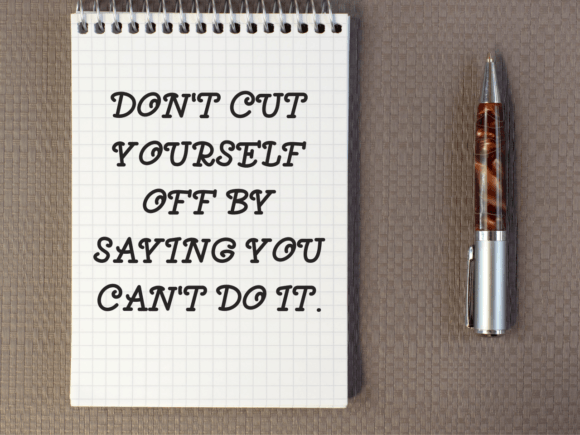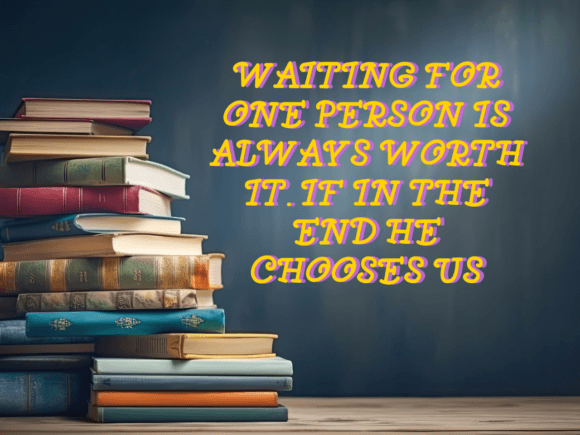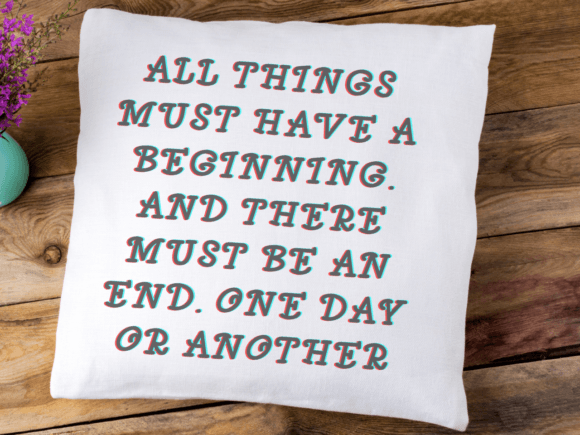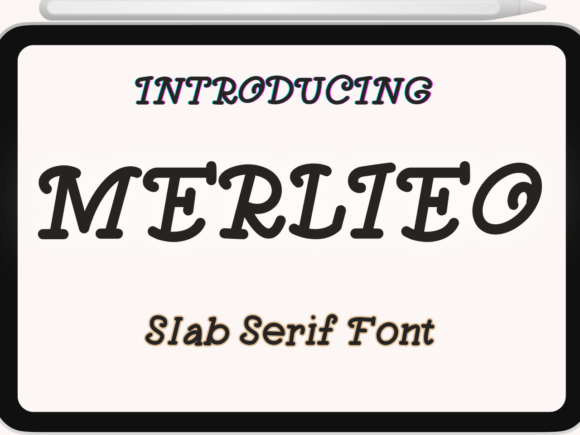
Introduction to Merlieo Font
Merlieo is a sweet and friendly font.
Key Features of Merlieo Font
Why Choose Merlieo Font?
Merlieo Font offers exceptional quality and versatility, making it a valuable addition to your design toolkit. Whether you’re creating for personal projects or commercial use, Merlieo Font delivers professional results.